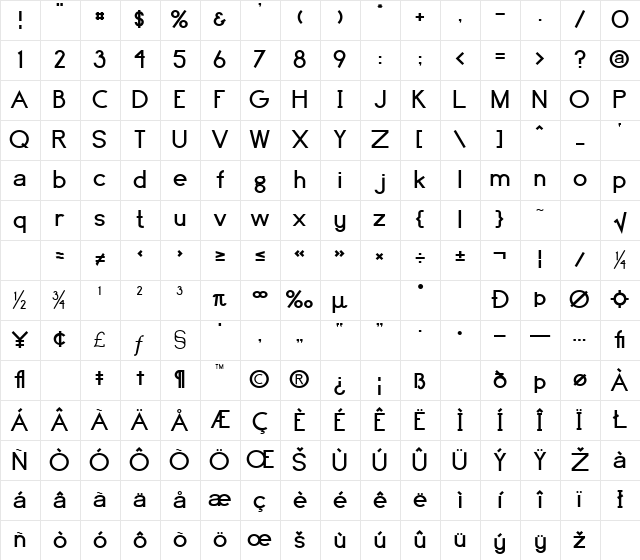
Standard Normal Free Font
Standard Normal
Design Context for Standard
Standard is a composed and adaptable typeface that performs quietly and consistently across a wide range of design contexts.